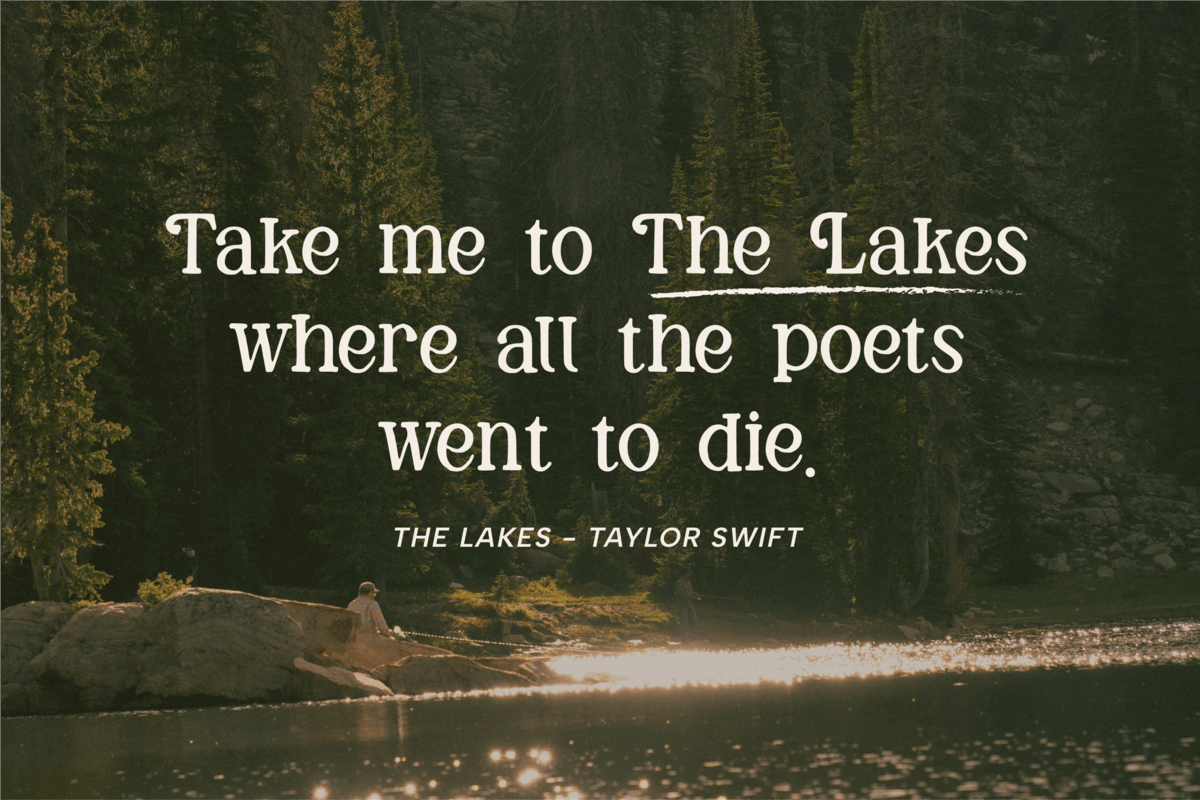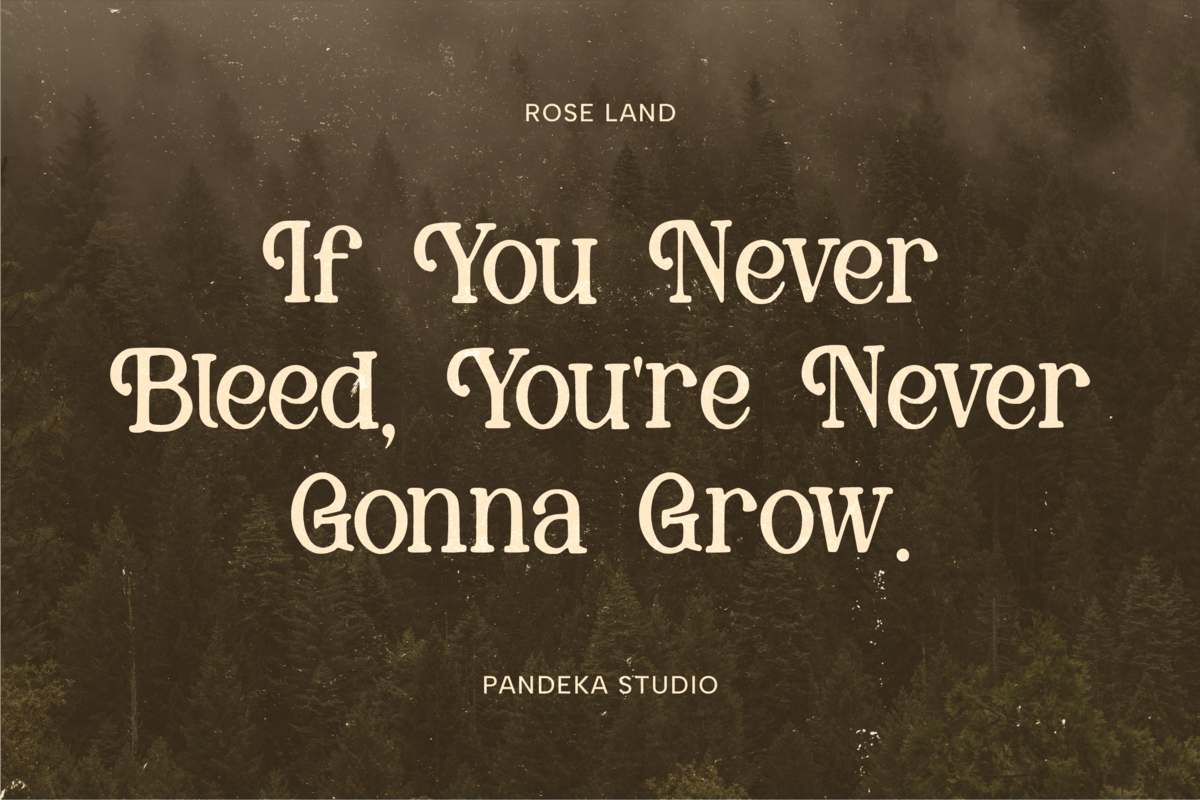
Handmade Elegant Serif – Rose Land Font
Handmade Elegant Serif – Rose Land Font is a versatile typeface ideal for various projects, including logos, branding, posters, blog headers, advertisements. The free version includes a full set of uppercase and lowercase letters, available in OTF format.